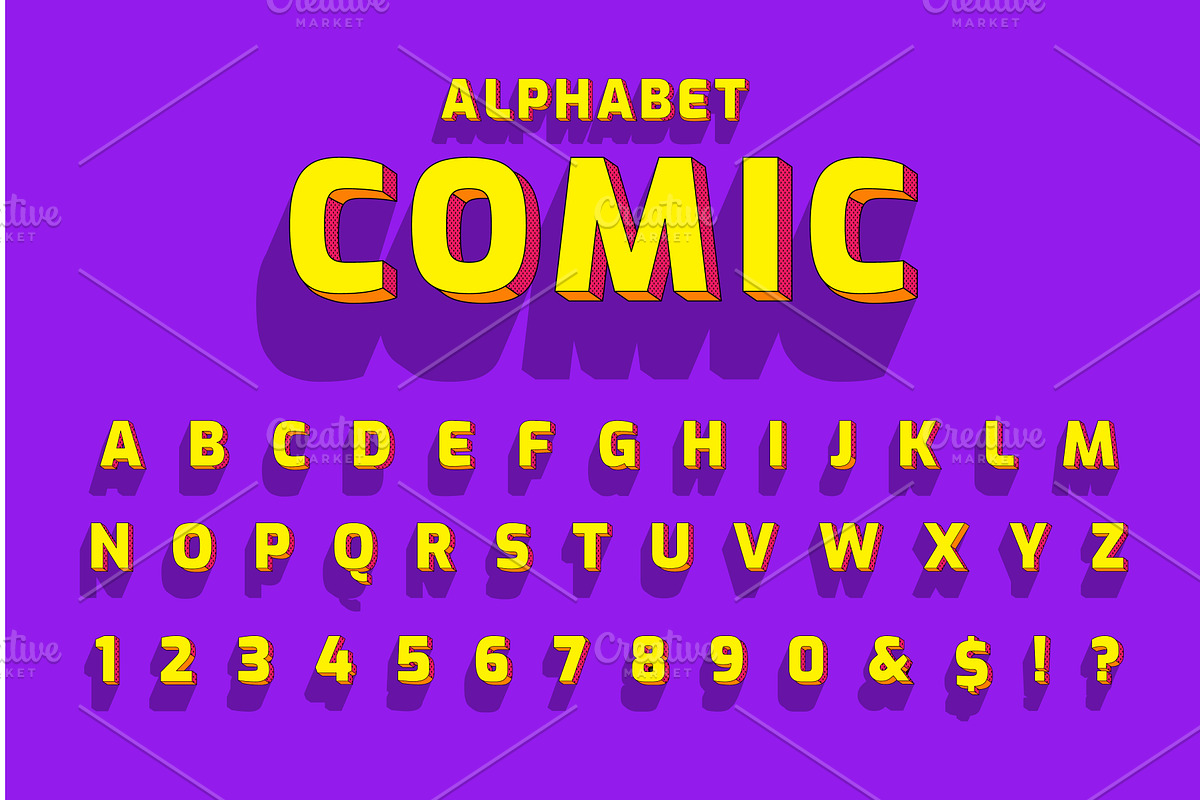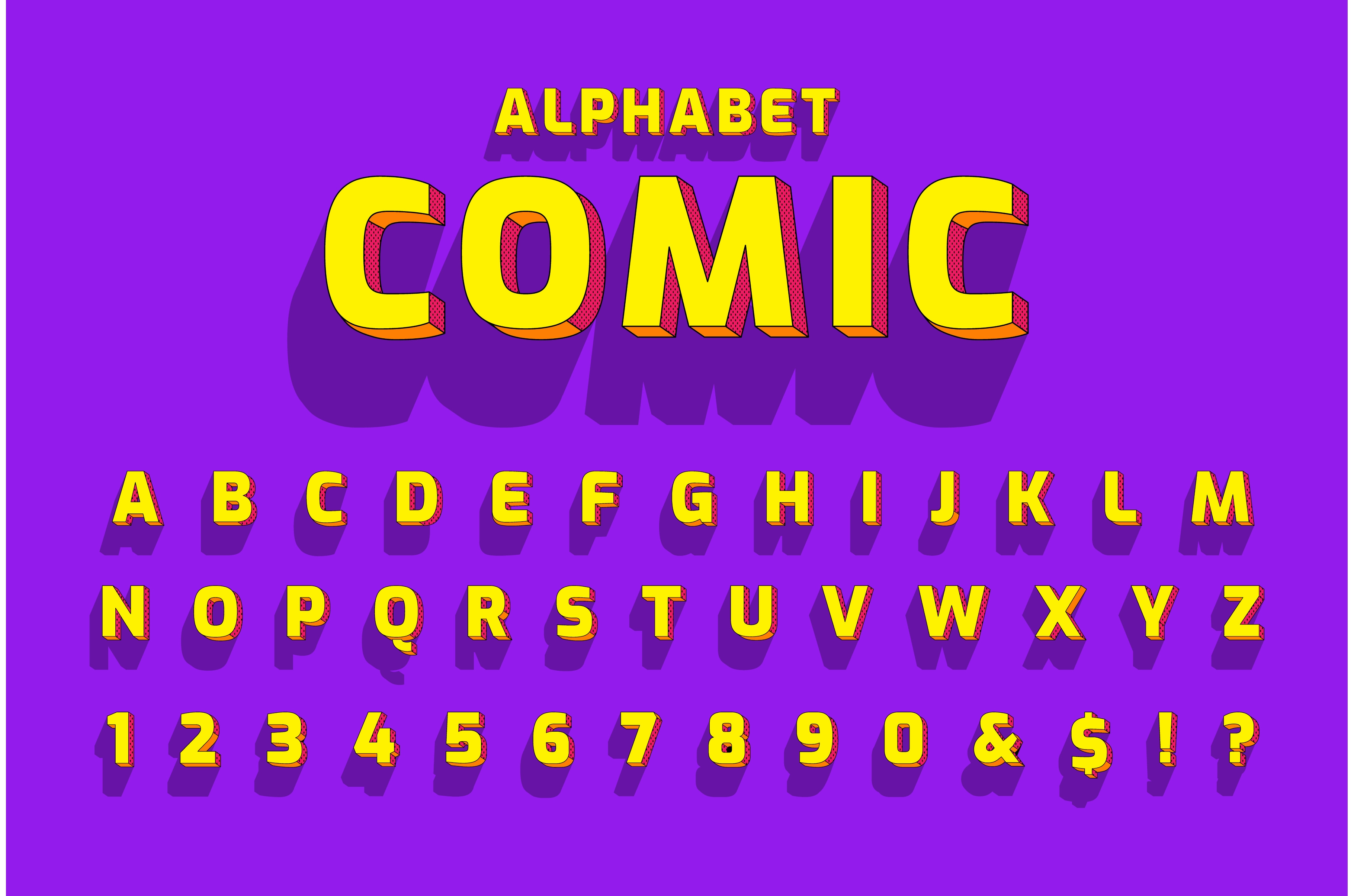
Comic retro font set. Alphabet
Comic retro font set. Alphabet letters and number in style of comics, pop art for title, headline, poster, comics, or banner design. Cartoon typography collection.